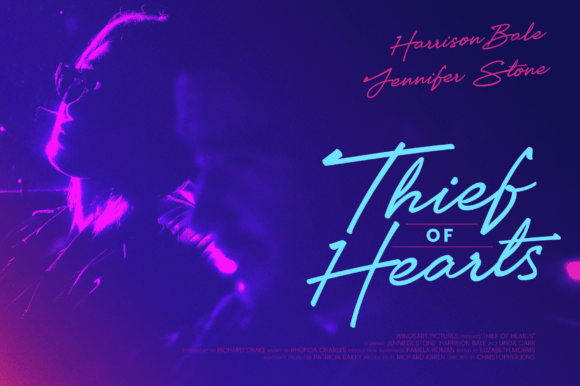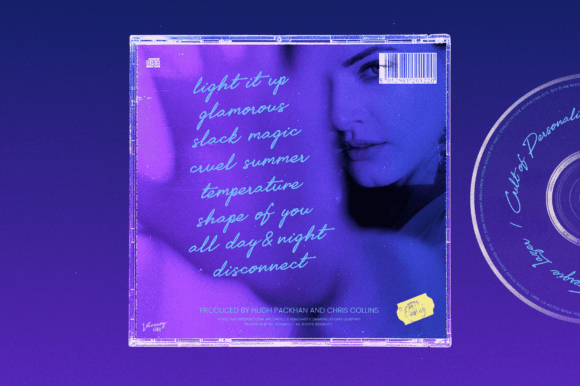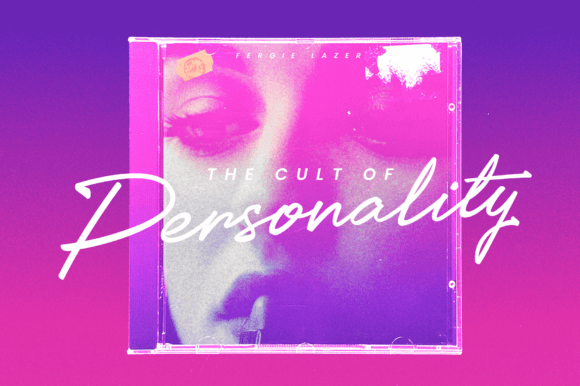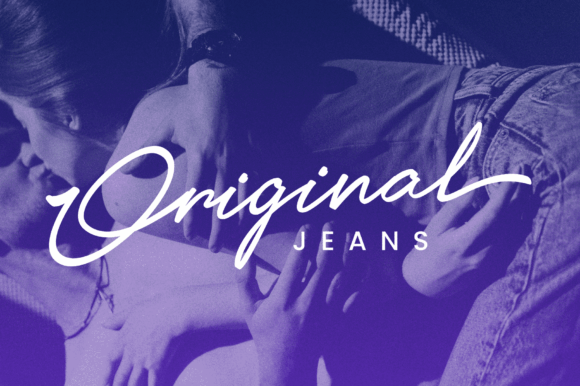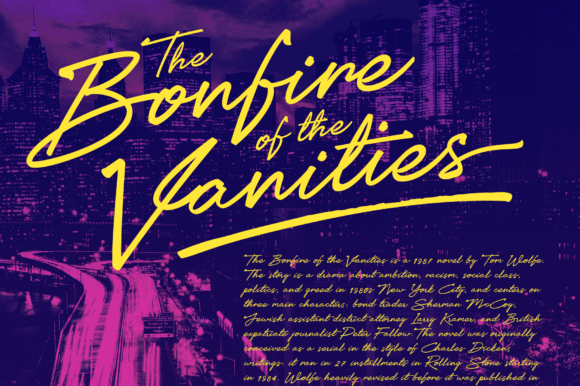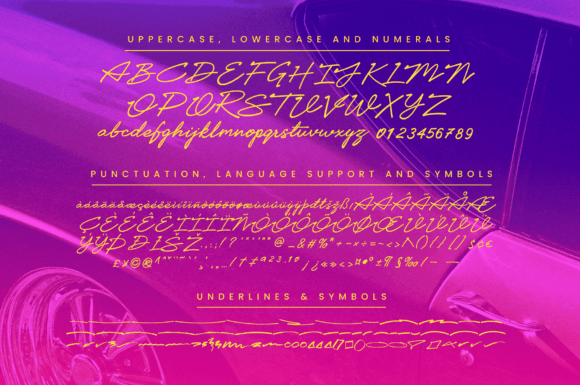
The High Concept Font: A Modern Script for Creative Projects
I’ll never forget the design struggle I faced while working on a magazine editorial project. My client wanted a font that exuded a friendly, laid-back vibe, but I was stuck in a creative rut. That’s when I stumbled upon the High Concept font, and it instantly became my go-to choice. In this article, I’ll share my experience with this versatile script font, its features, and how to make the most of it in your creative projects.
First Impressions: What I Love About High Concept Font
The High Concept font is a modern script based on the look of chisel tip marker pens, offering a free-flowing and natural handwritten style. Here are some aspects that I absolutely love:
- ✨ Retro yet modern: High Concept echoes the retro stylings of 1980s and 90s scripts, but with a contemporary twist that’s perfect for modern projects.
- ✅ Versatile: This font is suitable for various applications, including magazine editorials, cookbooks, album covers, and fashion-led advertising.
- 💃 Laid-back and friendly aesthetic: High Concept adds a human touch to any project, making it perfect for designers who want to convey a sense of approachability.
Honest Review: Small Quirks and Limitations
While High Concept is an excellent font, it’s not without its quirks:
- 🤔 Limited use in formal contexts: Due to its casual nature, High Concept might not be the best choice for formal or corporate projects.
- ⚠️ Glyph limitations: Some users have reported that the font could benefit from more extensive glyph support.
The High Concept font was designed with the intention of capturing the essence of modern, handwritten scripts. Inspired by the look of chisel tip marker pens, the designer aimed to create a font that felt both retro and contemporary. The result is a versatile script that can add a human touch to various creative projects.
| Font Name | High Concept Font |
| Author | wingsart |
| What is the High Concept font best used for? | The High Concept font is best used for creative projects that require a friendly, laid-back aesthetic, such as magazine editorials, cookbooks, album covers, and fashion-led advertising. |
| Is High Concept suitable for formal projects? | No, High Concept is not suitable for formal projects due to its casual nature. It’s best used for creative projects that require a more relaxed vibe. |
| Does High Concept support OpenType features? | Yes, High Concept supports OpenType features, which can be accessed in compatible design software like Adobe Photoshop and Illustrator. |